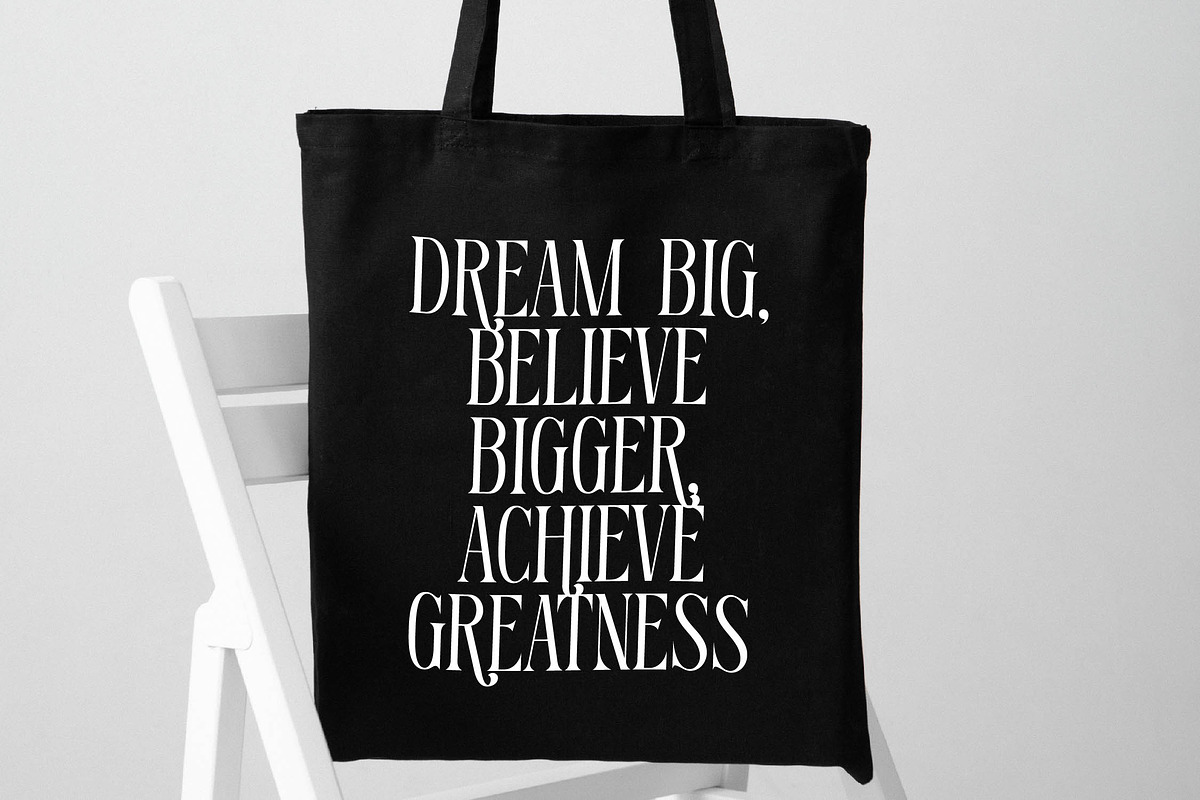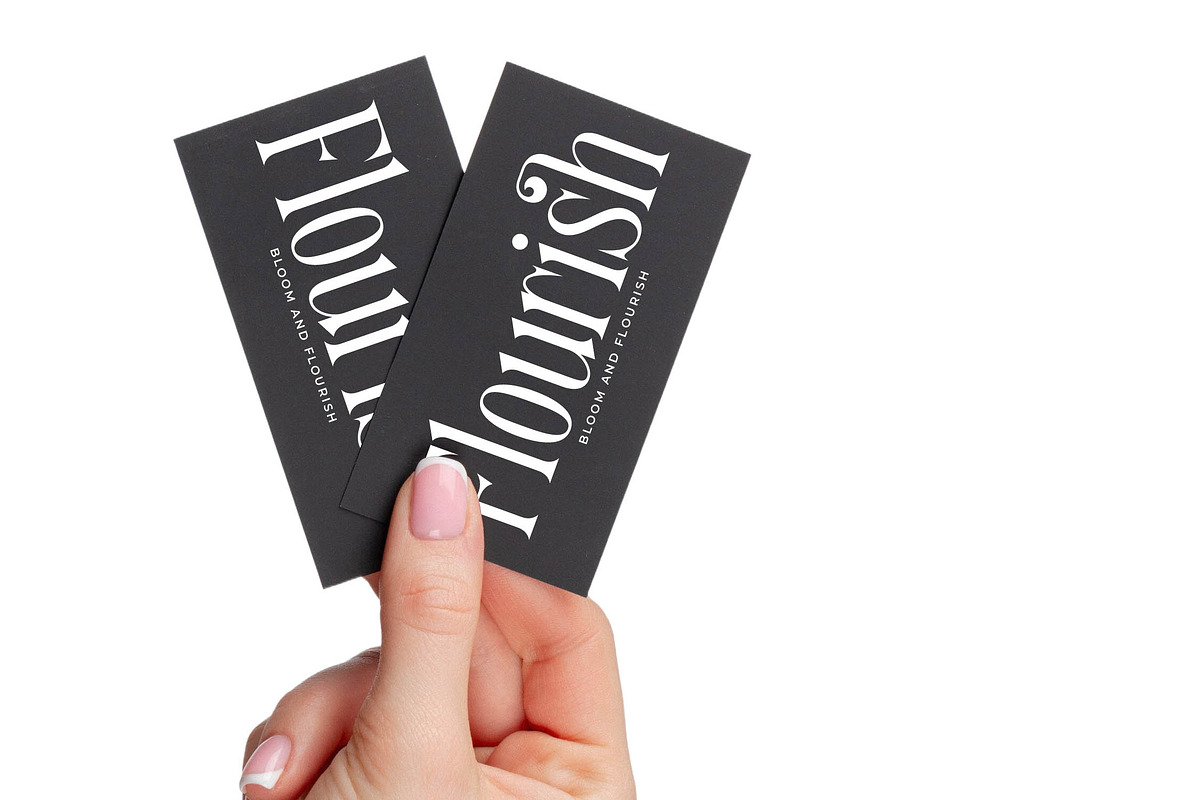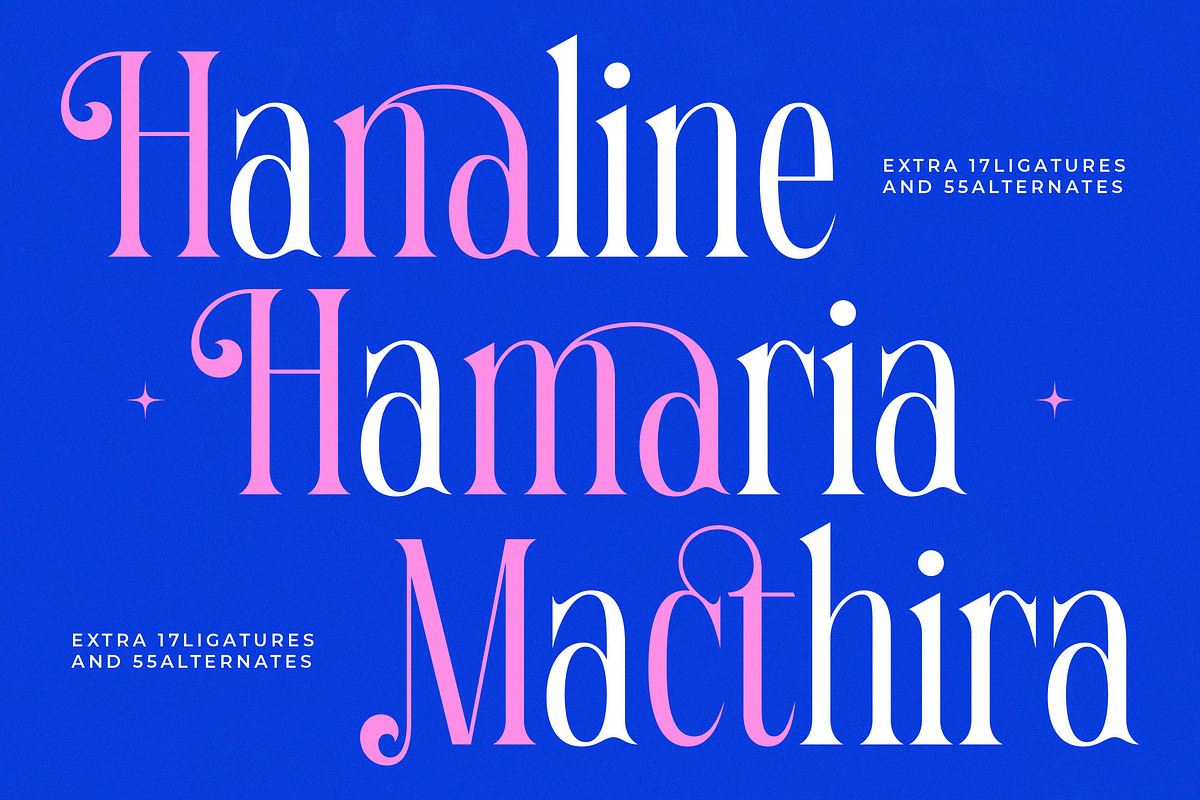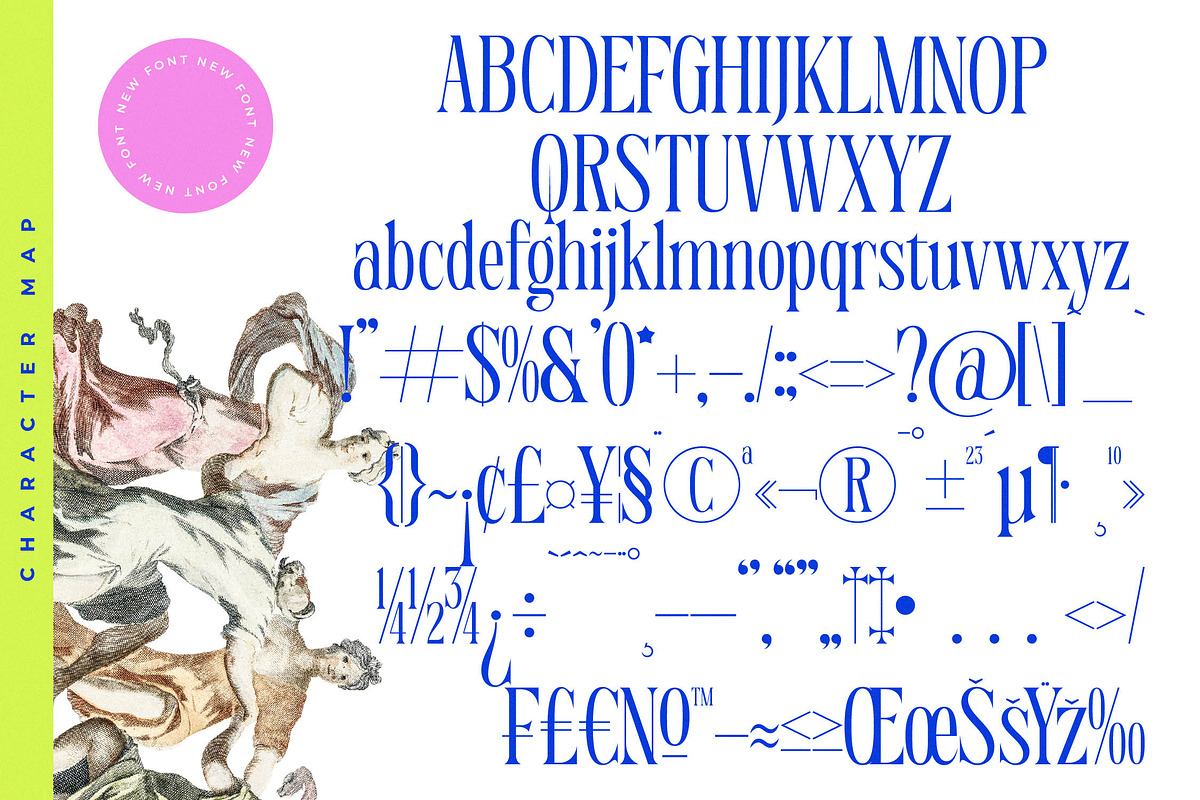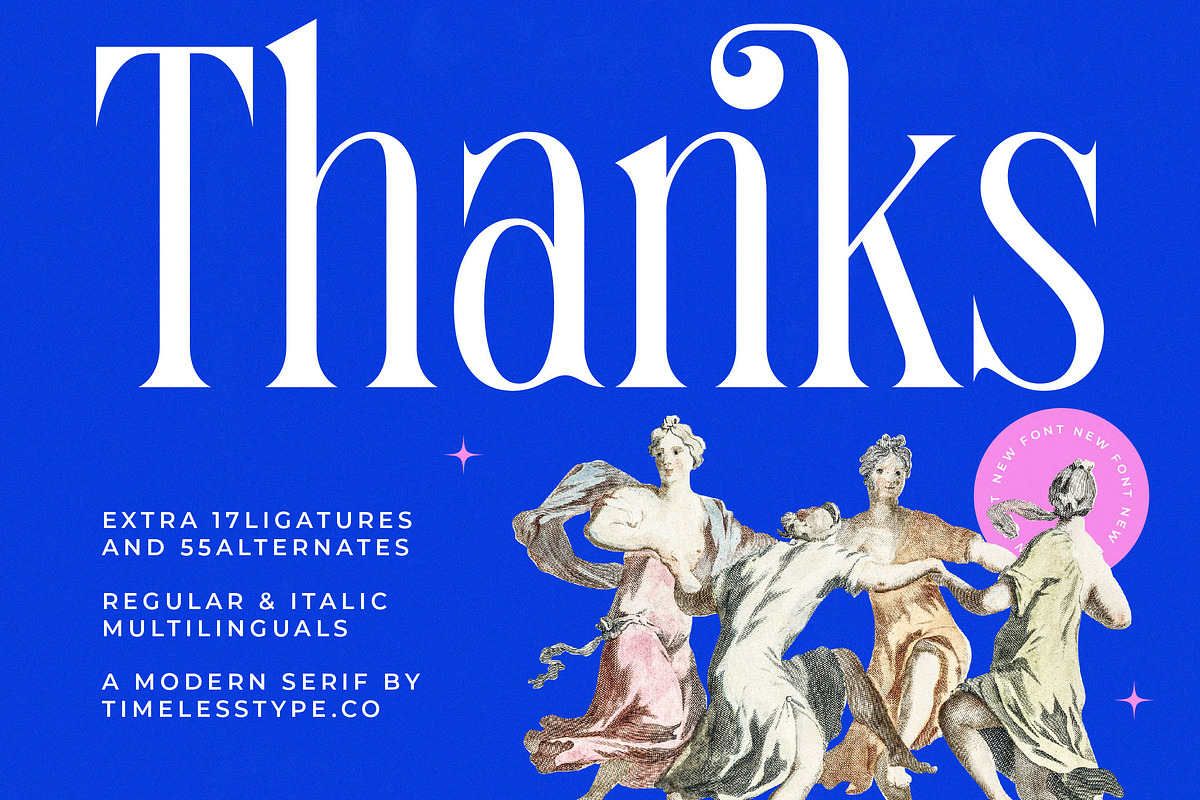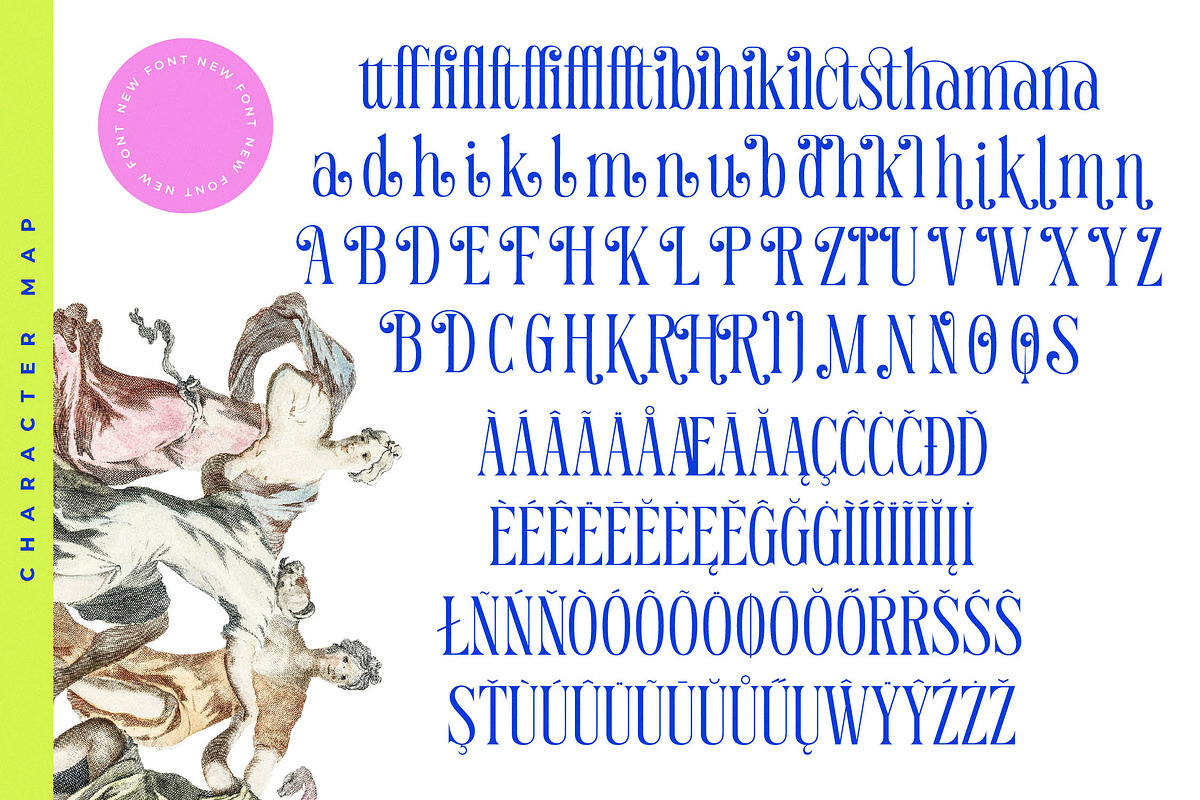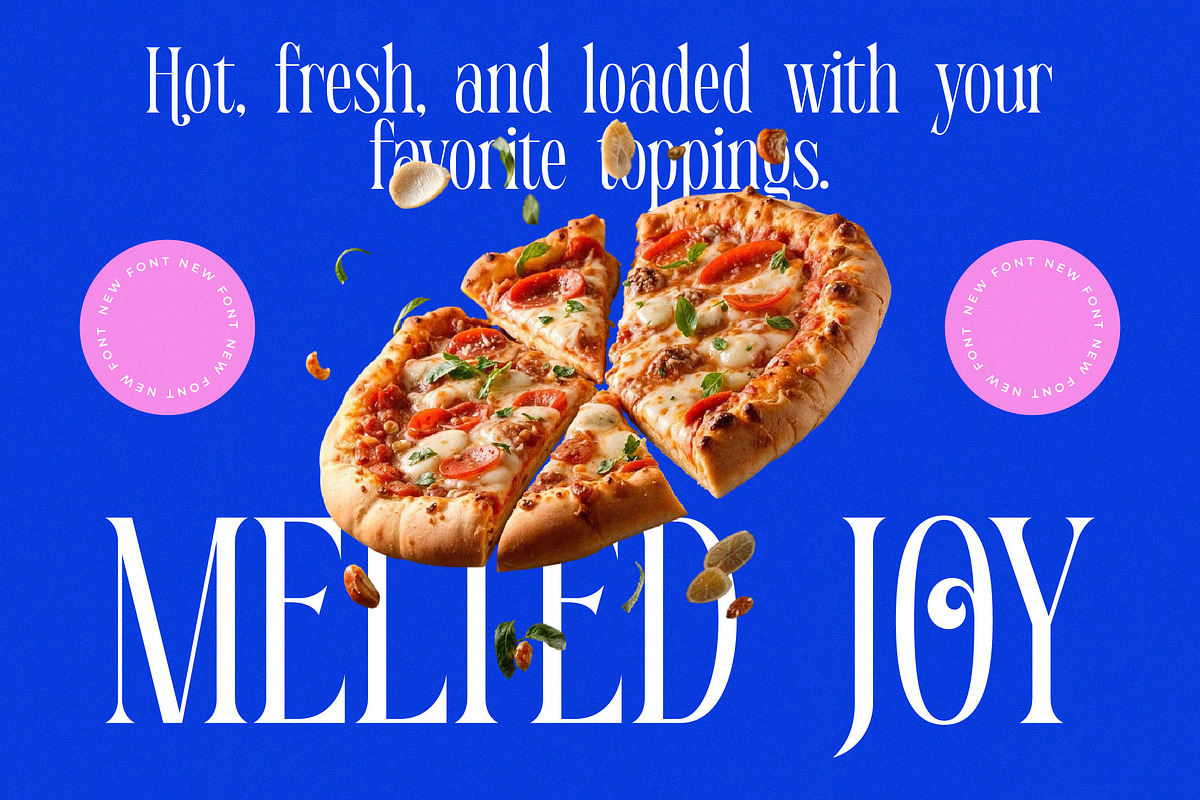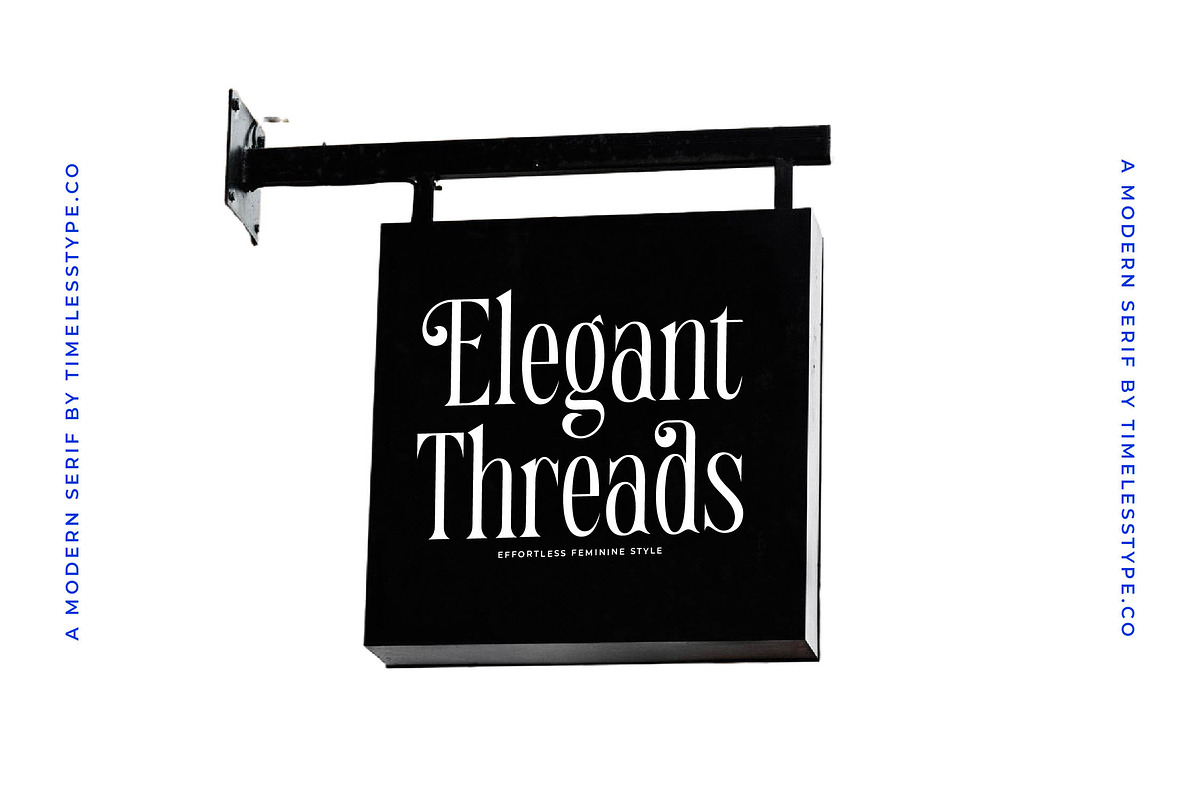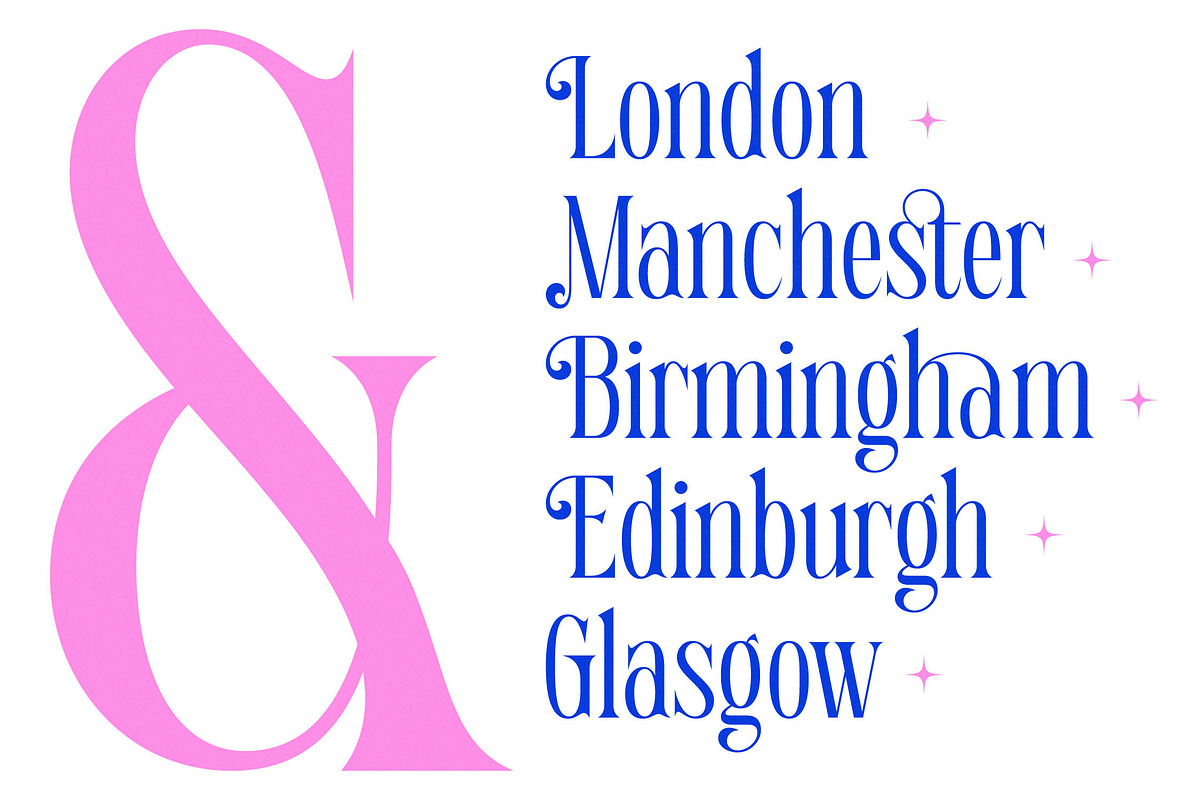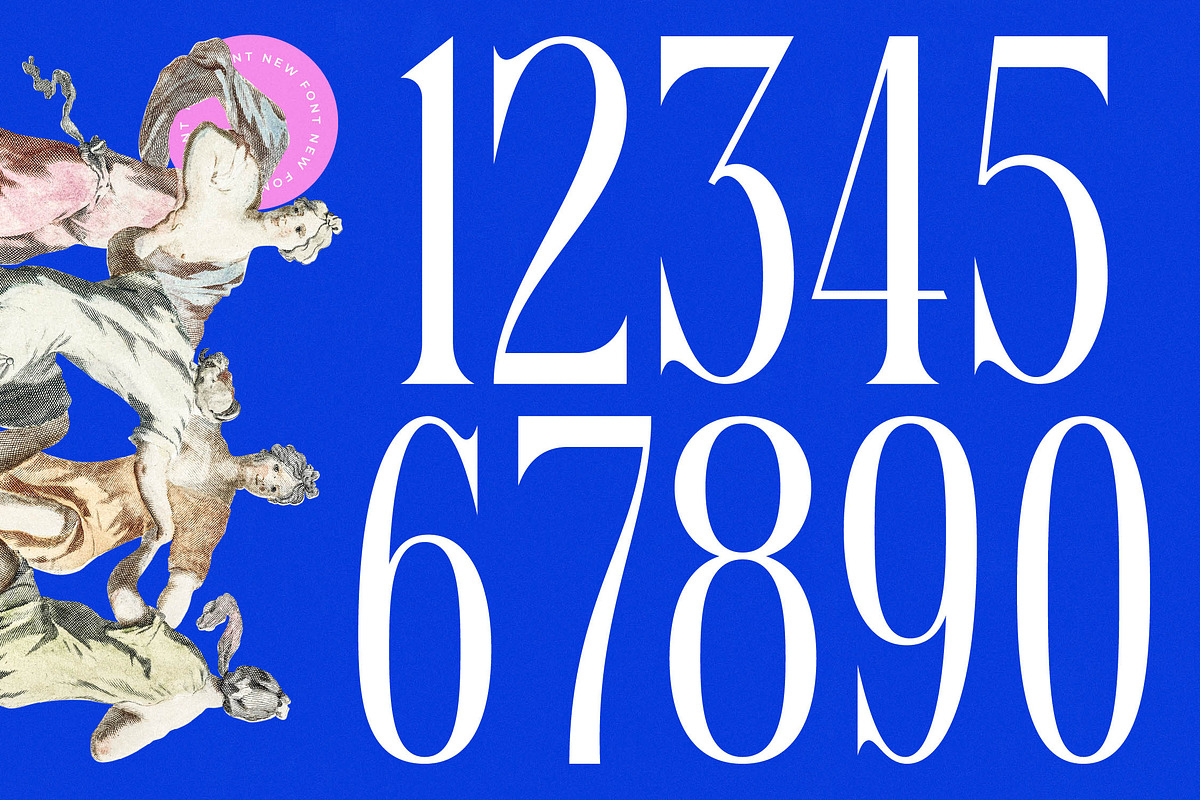
Qehanst Elegant Modern Serif
Qehanst is an exquisite display of typographic artistry, blending classical grace with a sharp, contemporary edge. This font commands attention, transforming every character into a statement of refined elegance and visual power.
Drawing inspiration from the fluid motion of classical sculptures and the structured beauty of ancient architecture, this typeface captures a rhythmic flow. It bridges the gap between historical weight and the lightness of high-fashion aesthetics, creating a truly unique visual atmosphere.
This modern serif display exudes an aura of sophistication and luxury typography through its high-contrast serif strokes and elongated proportions. As an editorial font, it provides an unmatched branding impact for projects that require a balance of bold confidence and delicate detail.
Perfectly aligned with the current modern serif trend, this typeface meets the demand for editorial display fonts that feel both nostalgic and forward-thinking. It utilizes character-driven typography to help designers stand out in a saturated digital landscape.
Ideal for high-end logo design and comprehensive branding, this font also excels in editorial layouts for magazines. Its graceful nature makes it a stunning choice for packaging, wedding invitations, and luxury fashion campaigns.
The family includes a rich set of ligatures and unique alternates to provide endless creative possibilities. With comprehensive multilingual support and a wide range of international characters, it ensures your message is accessible across global markets.
- Ligature 17 Alternate 55